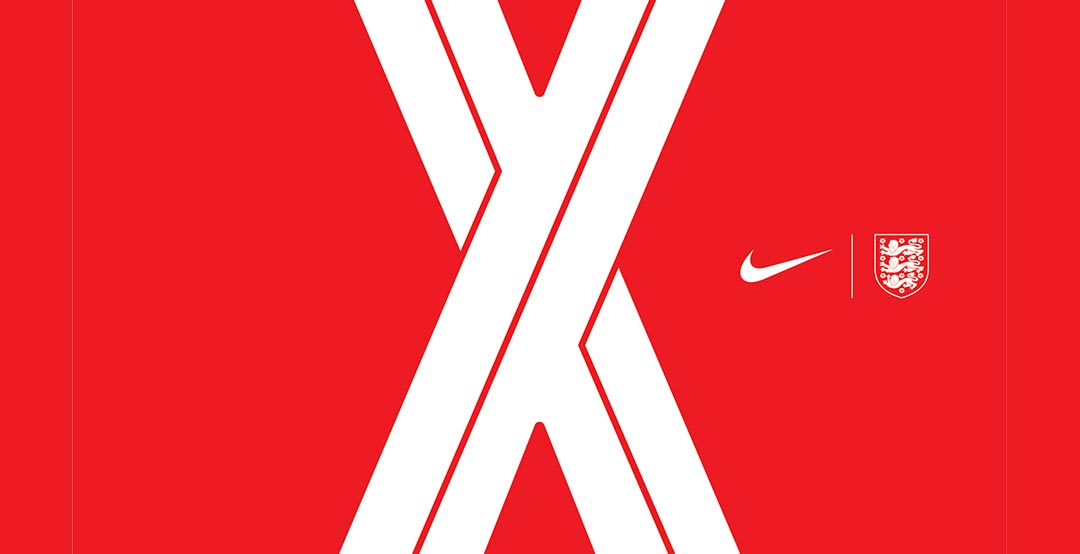
In Detail | Unique Nike England 2018 World Cup Font Revealed
Nike's England World Cup kits feature a bespoke typeface designed by Craig Ward. Let us take a closer look at the unique font that England will wear in Russia this summer.
Craig Ward is a British-born Design Director who is known primarily for his pioneering typographic works. Craig Ward has created typefaces for the likes of Calvin Klein Adobe, Starbucks and MasterCard.
Nike England 2018 World Cup Numbers
Here are some examples of the Nike England 2018 World Cup typeface.
Bespokly designed for the England national football team, the Nike England 2018 World Cup letters and numbers draws inspiration from Johnston and Gil Sans, both quintessentially English fonts (the former with overground transport and the latter for association with London’s underground).
On the bottom of the Nike England 2018 World Cup font is the federation's crest.
What is also interesting to not is that the player numbers (which are backed by anti-cling nodes because athletes mentioned that previous number applications had caused the shirt to stick to their backs during extreme heat) have been moved from the center of the shirt to a more breathable zone below the crest.
Wireframes for the England typeface
In an interview with about the design process and inspiration of the England 2018 World Cup font with Creative Review Craig Ward said: "I really wanted to create something dynamic that hinged on the cross icon, so I modeled and animated the core of the type in 3D software. I created a simple grid, drew single line paths for the letterforms and added a cross as a sweep around the path, which went on to inform the inline aspect and the twists in the letters. I’m hoping that the movement that went into creating the letterforms comes through in the final pieces."
The ask was for something dynamic, contemporary, process-led and which in some way made use of the St George's cross. The final design was actually modeled in 3D with the cross sweeping and curving around a baseline path. #england #worldcup #typography pic.twitter.com/QKw1H7KUI5